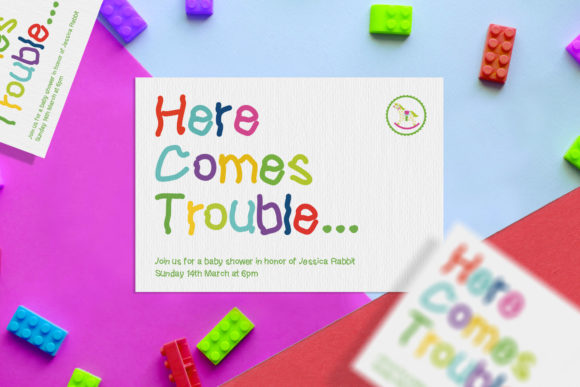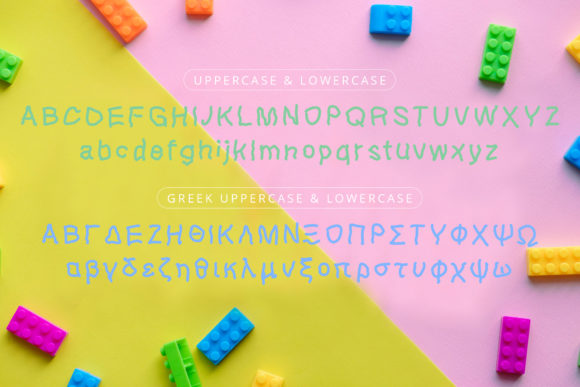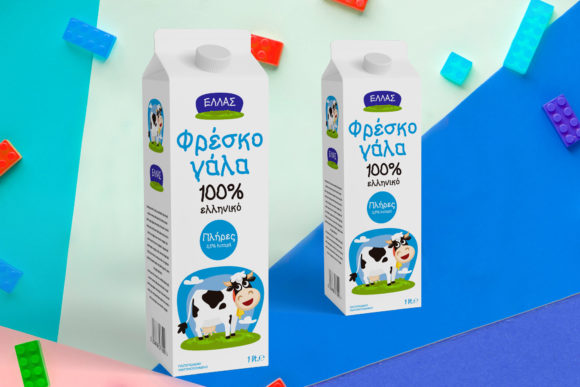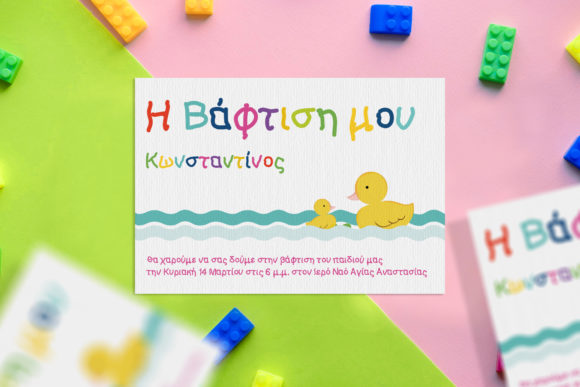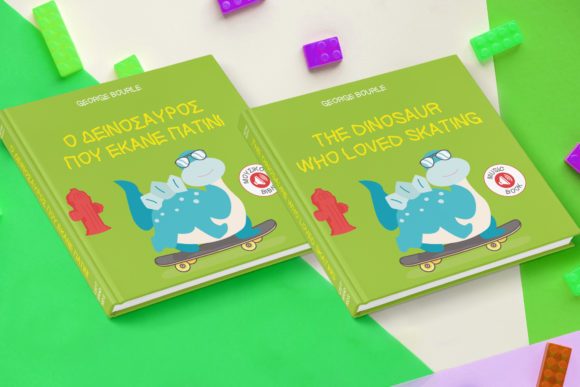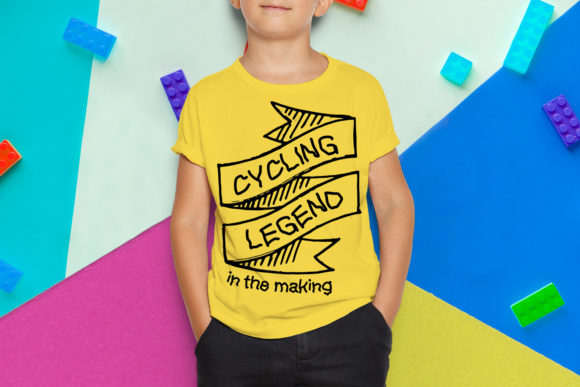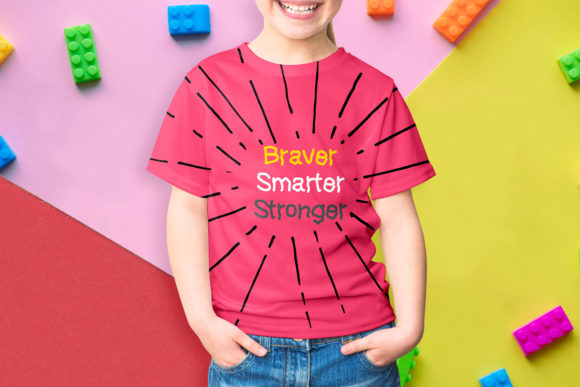
Lefthand Kids Font
About Lefthand Kids Font
Lefthand Kids is a weird, fun and wobbly script font with a whimsical feel, making it the ideal typeface for any kids-themed or school project!